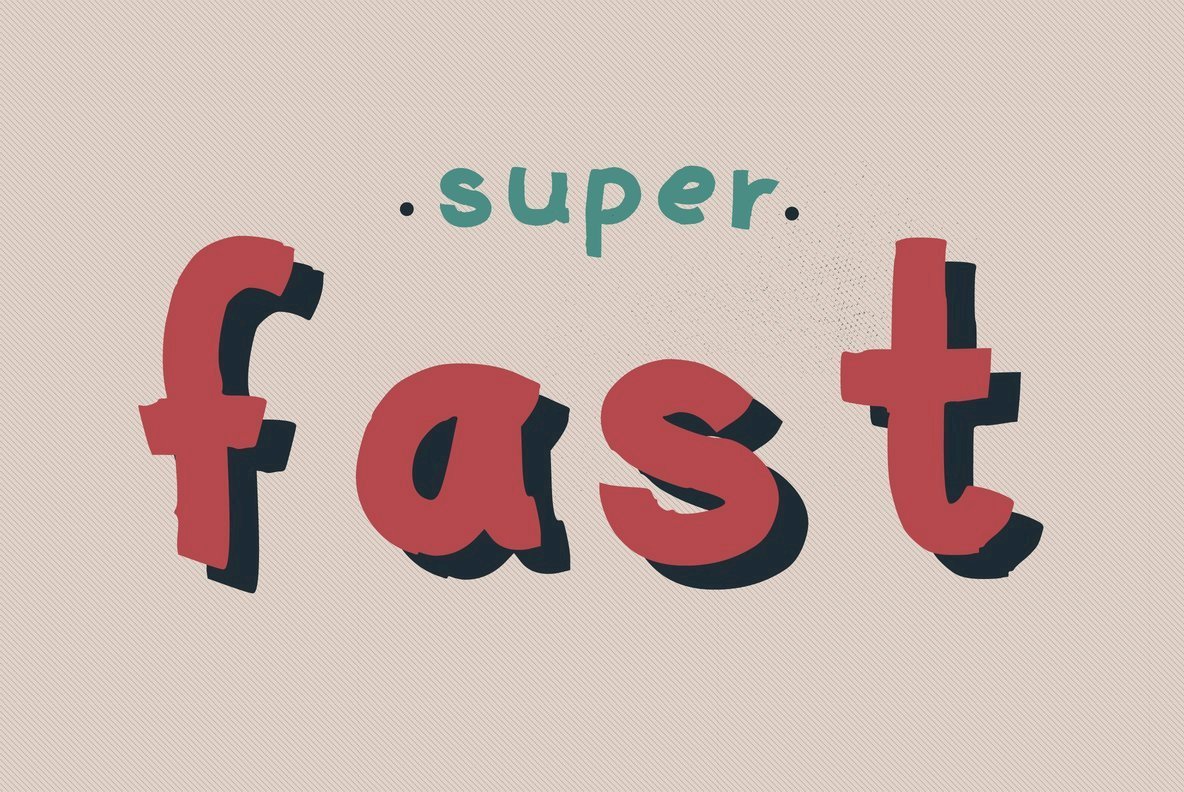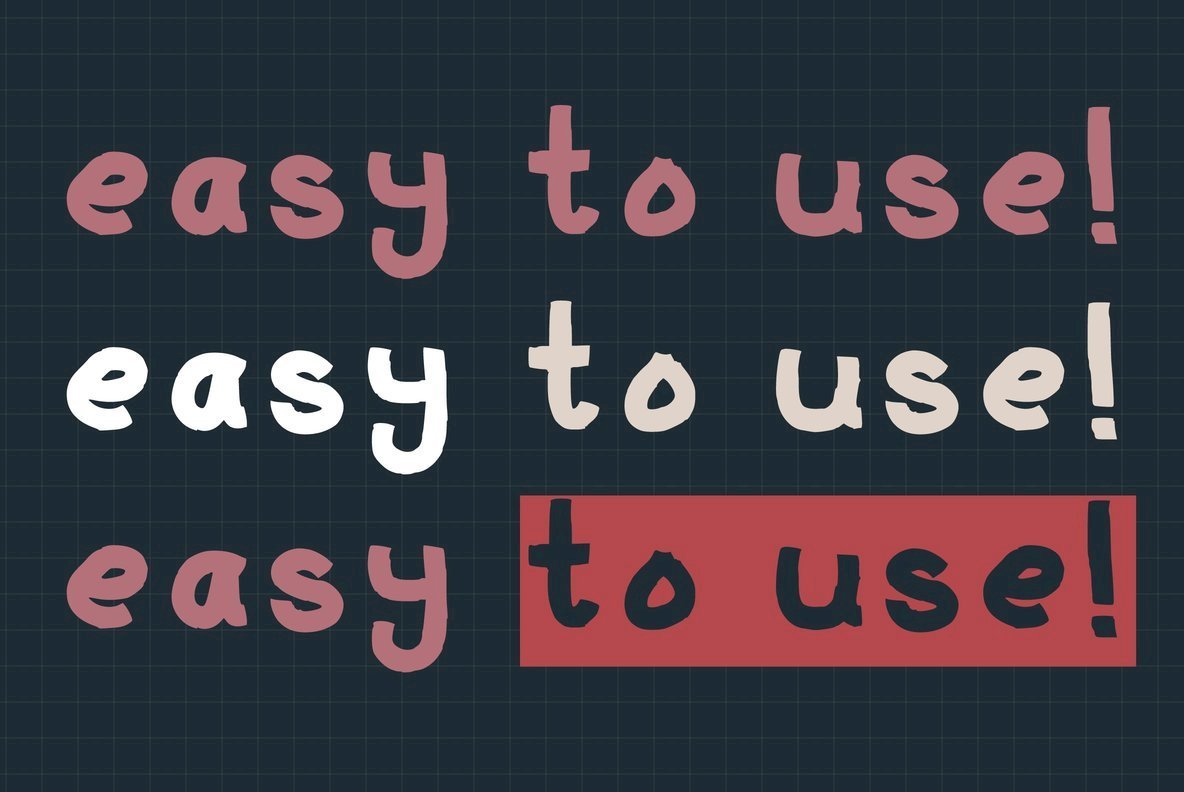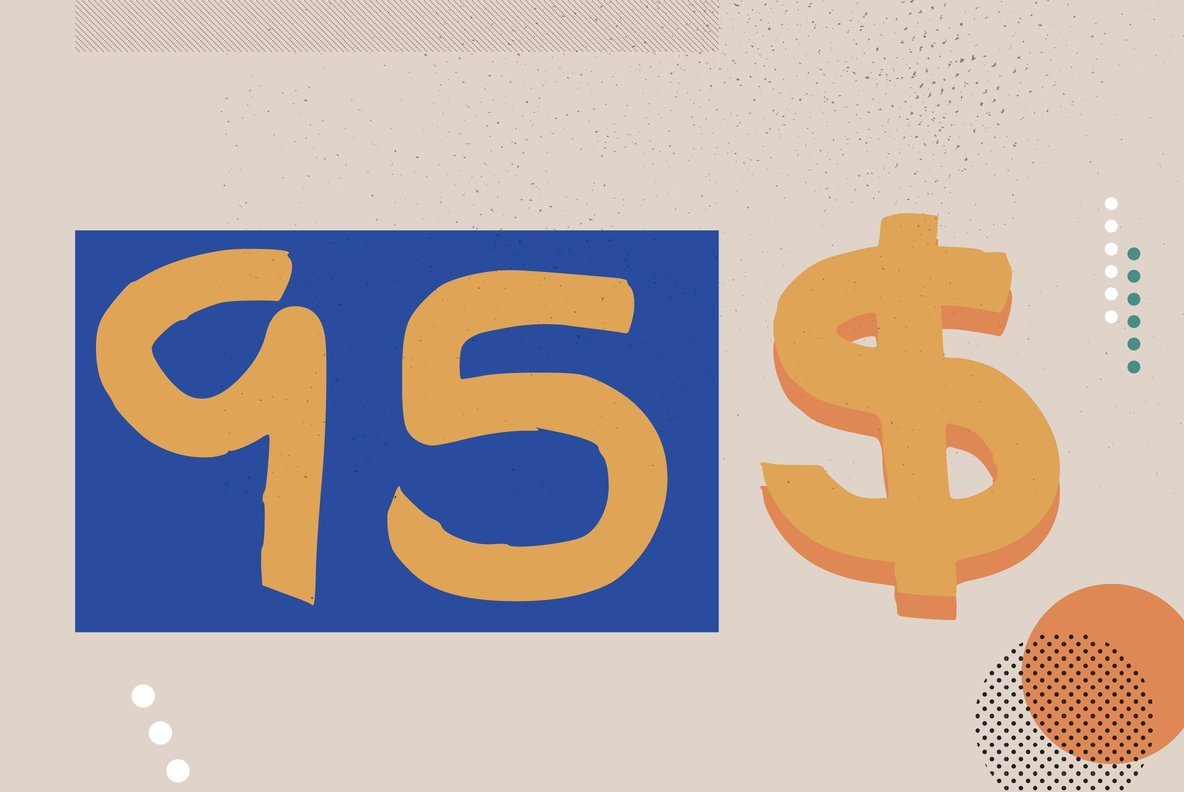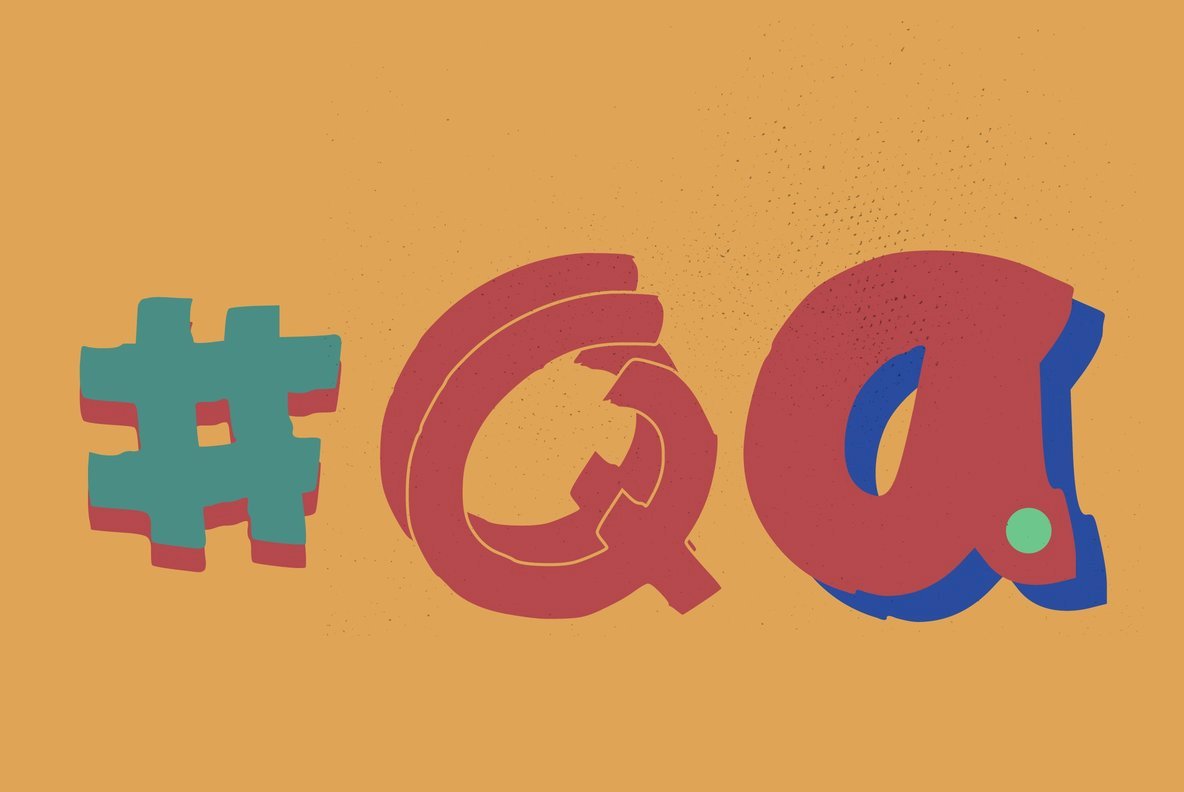
Oh You Font
Casual hand made font using a big fat marker. It's cheeky in nature and its causal feel has a little wood cut feel to it which will give headlines and sentences a seance of structure to your headlines. Its what you need in your life, think of it a good friend or that warm cup of coffee to give you that lift! This font has sense of warmth, being cosy, close and similar to you. Go on give it a go, in fact give it a good old hug.
This font was created by Benjamin A Melville and features a full upper and lower case alphabet including 0-9 and some punctuation, please see glyphs list for all characters you will be able to work with.